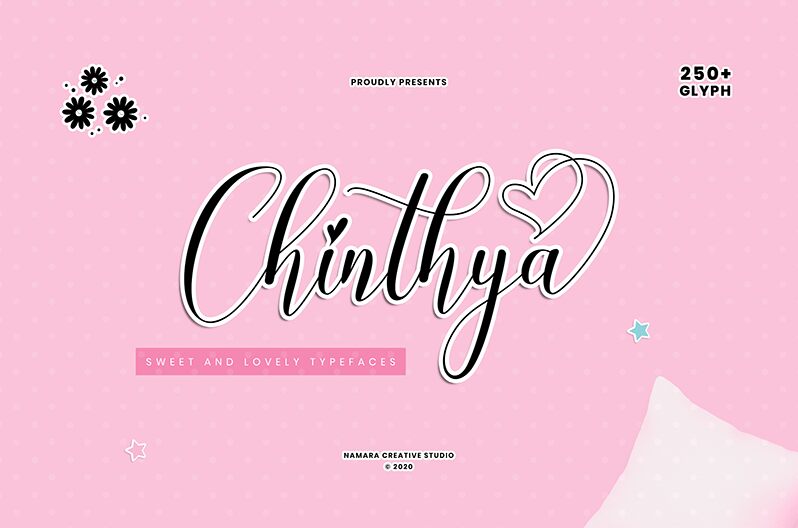
Chinthya is sweet and lovely calligraphy fonts in cute and beautiful elegant styles. decorative characters and handlettering effect make this font looks so naturally. Included OpenType features : alternates, ligatures and multilingual support.